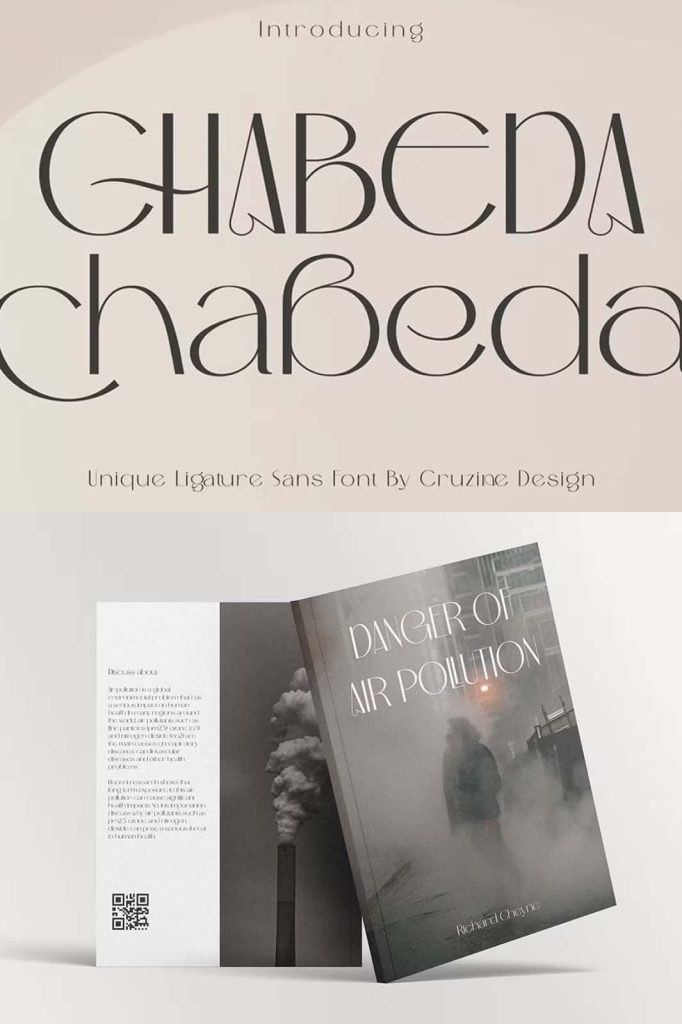
Chabeda Modern Sans FontleastedJanuary 2, 2025Fonts Trendy, elegant, luxury, romantic & modern style sans serif font for your new fancy projects. Stylish, Download